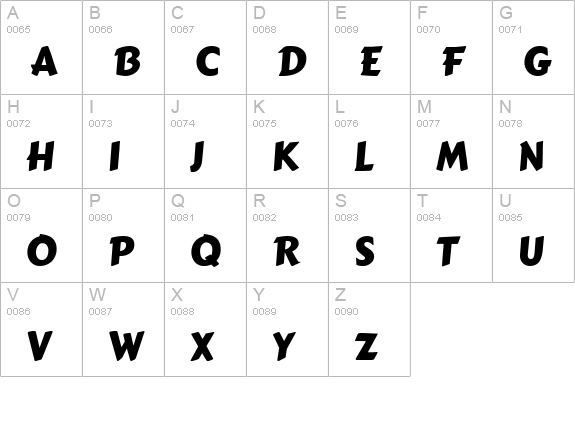
Real Cartoon Font Details
The Real Cartoon font captures the whimsical and playful essence of classic cartoons, making it the perfect choice for projects that need a touch of fun and nostalgia. This font features bold, exaggerated strokes and rounded edges that bring to mind beloved animated characters from childhood. With its charming and lighthearted design, Real Cartoon is sure to add a touch of personality to any project.